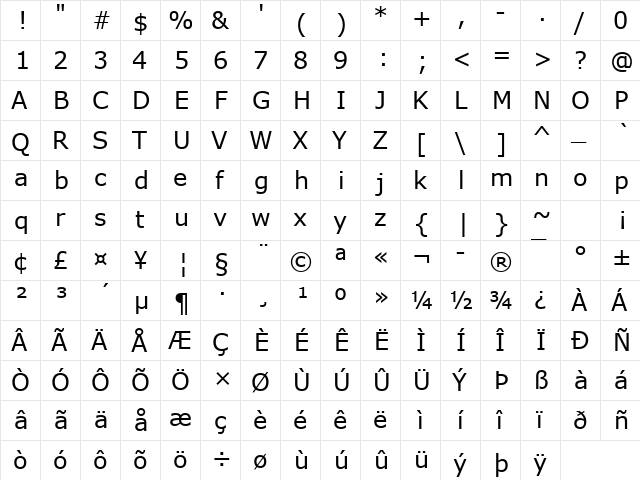
font228 Regular
Design Context for font228 Typeface
font228 takes a measured approach to typography — its balanced proportions and neutral character make it a reliable workhorse for both digital and print work.